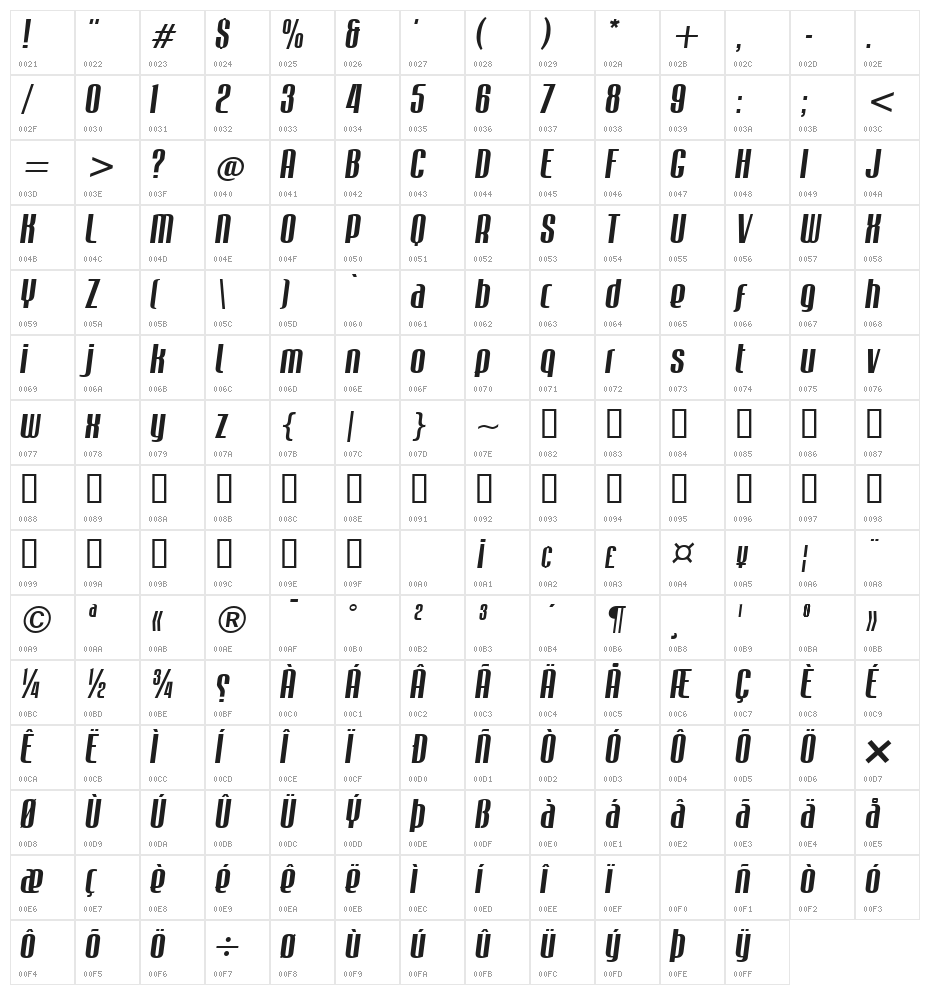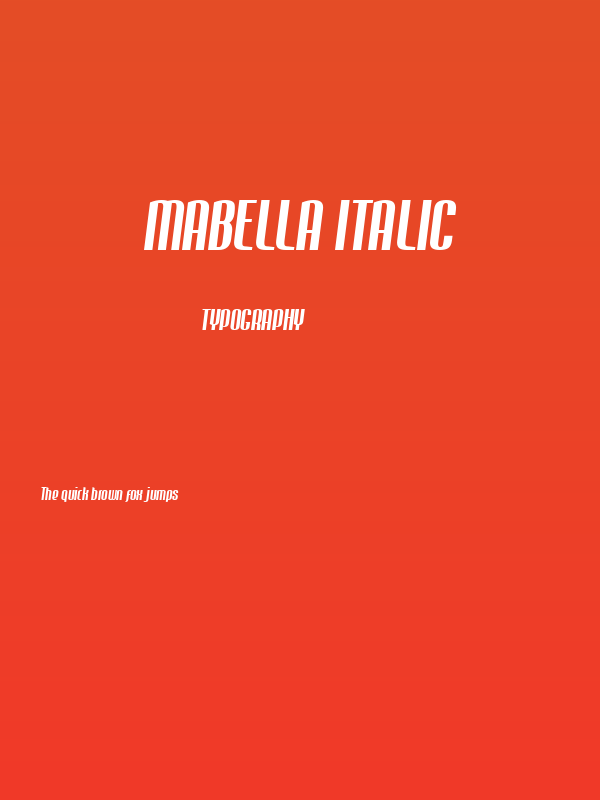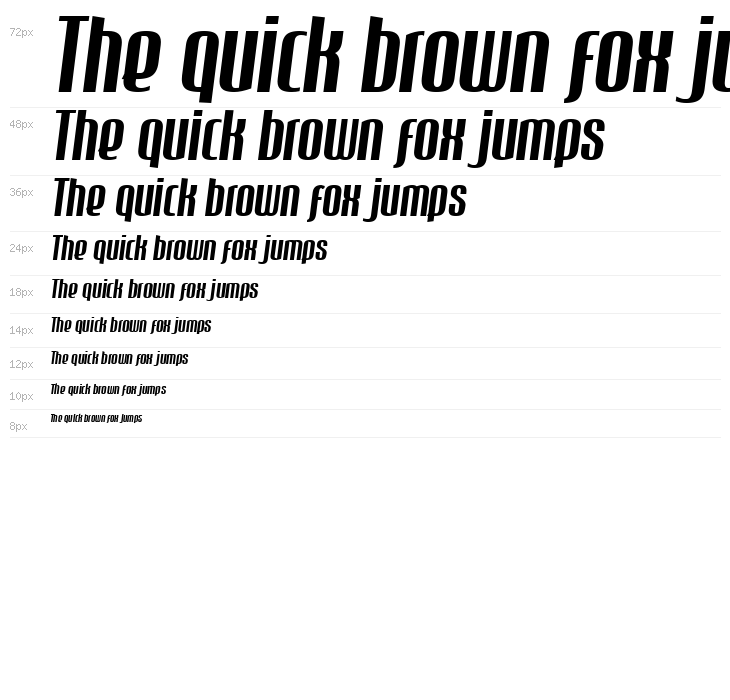
Mabella Italic Font
Mabella Italic Description
This font exhibits a bold and dynamic style with a pronounced italic slant, giving it a sense of motion and energy. The characters are tall and narrow, contributing to a condensed appearance that maximizes vertical space. The strokes are consistent in width, providing a uniform look across all characters. The uppercase and lowercase letters maintain a cohesive design, with smooth curves and sharp angles that enhance readability. The numerals are distinct and align well with the overall style, while the special characters are crafted to match the font's bold and sleek aesthetic.
| Proposed Projects | Ideal for branding, advertising, and poster design where a strong and impactful presence is needed. |